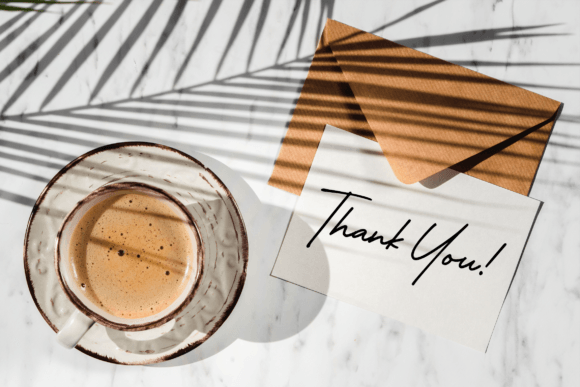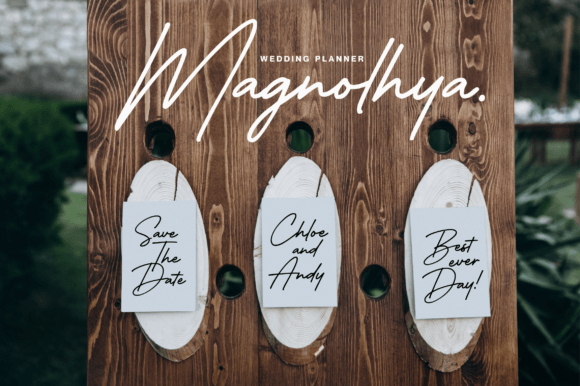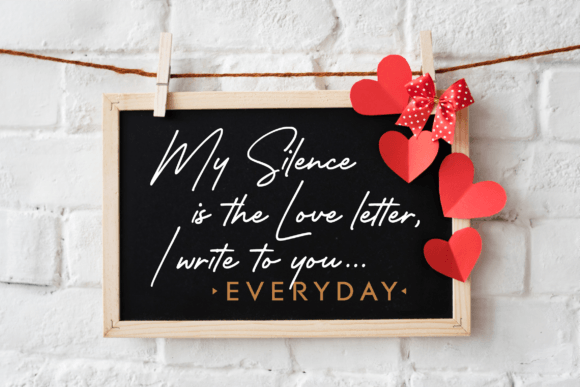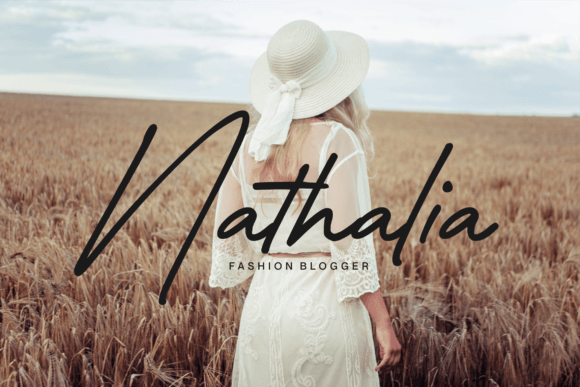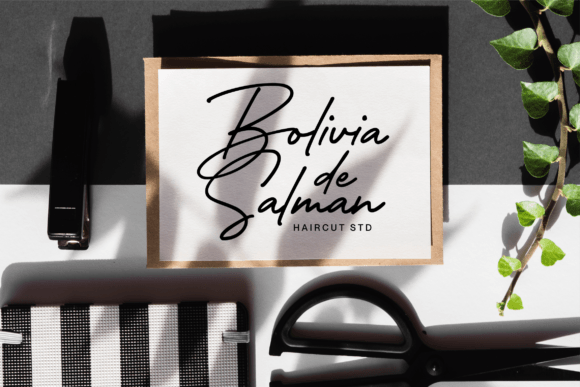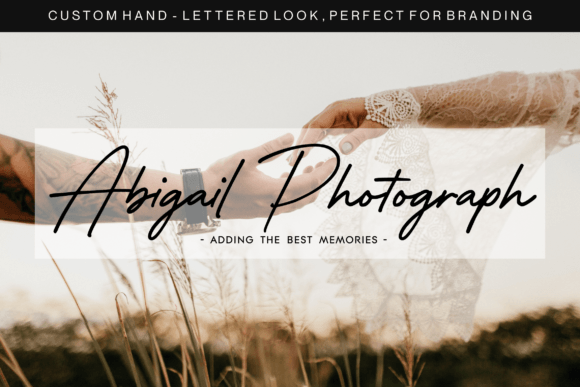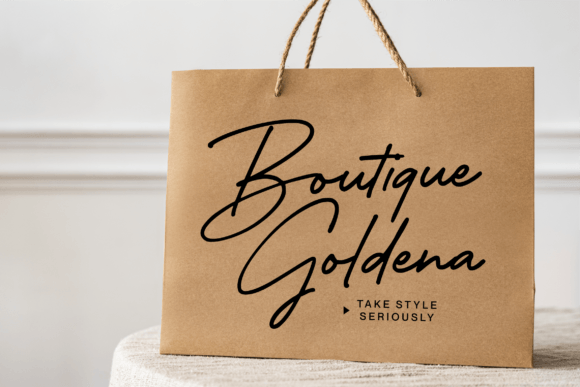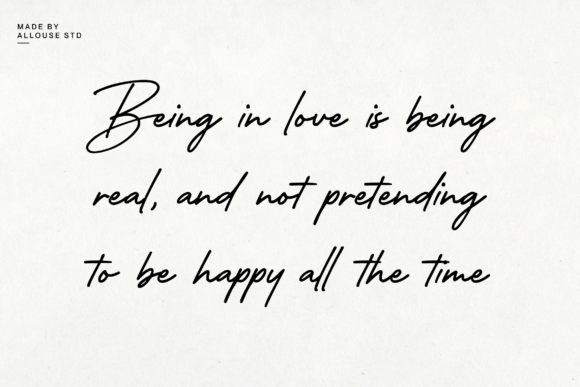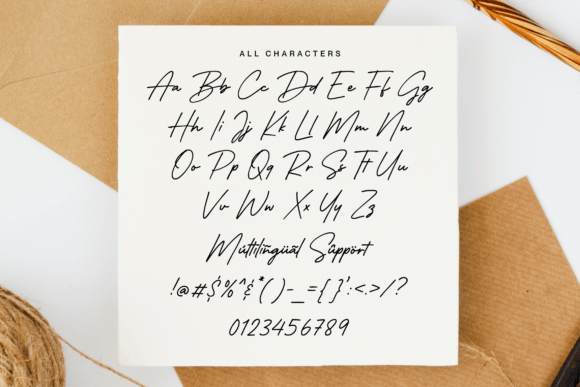
Guthen Jaqueline Font
About Guthen Jaqueline Font
Guthen Jaqueline stands as a testament to refined aesthetics and serves as a captivating signature font, enriching a myriad of design applications. This font is not just a typeface; it’s an embodiment of style, crafted for those seeking a perfect blend of elegance and uniqueness.
In the realm of product packaging, Guthen Jaqueline emerges as a formidable choice, injecting a dose of sophistication that resonates with consumers. Its distinctive strokes and curves lend themselves seamlessly to branding projects, imparting a sense of exclusivity and class to the visual identity of any product or service.
Magazines, as a medium that thrives on visual allure, find in Guthen Jaqueline a font that effortlessly elevates the typographic elements. Its graceful contours and fluid lines contribute to an engaging reading experience, making content not just legible but also visually delightful.
The pervasive influence of social media is an arena where Guthen Jaqueline shines brightly. Whether it’s Instagram posts, Facebook banners, or Twitter headers, this font weaves an intricate tapestry of style, making each word an aesthetic expression against diverse backgrounds.
The allure of weddings, events steeped in emotion and elegance, finds a fitting companion in Guthen Jaqueline. From invitations to place cards, the font imparts a touch of sophistication that complements the joyous atmosphere of such occasions.
In the broader context, Guthen Jaqueline transcends mere utility; it becomes a means to articulate words with grace and flair. Its adaptability is evident across various platforms and applications, making it a versatile tool for designers, content creators, and anyone seeking to make a visual statement.
As the strokes of Guthen Jaqueline dance across the canvas, it leaves an indelible impression. Its ability to convey both modern chic and timeless class makes it a font of choice for those who understand the language of aesthetics. Integrate Guthen Jaqueline into your designs, and witness how each letter transforms into a piece of art, adding a layer of distinction to your creative endeavors.